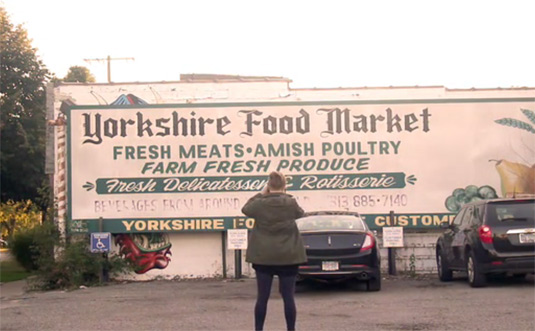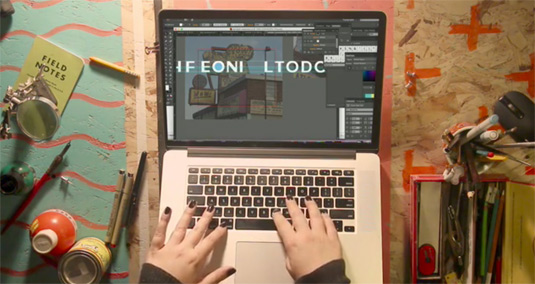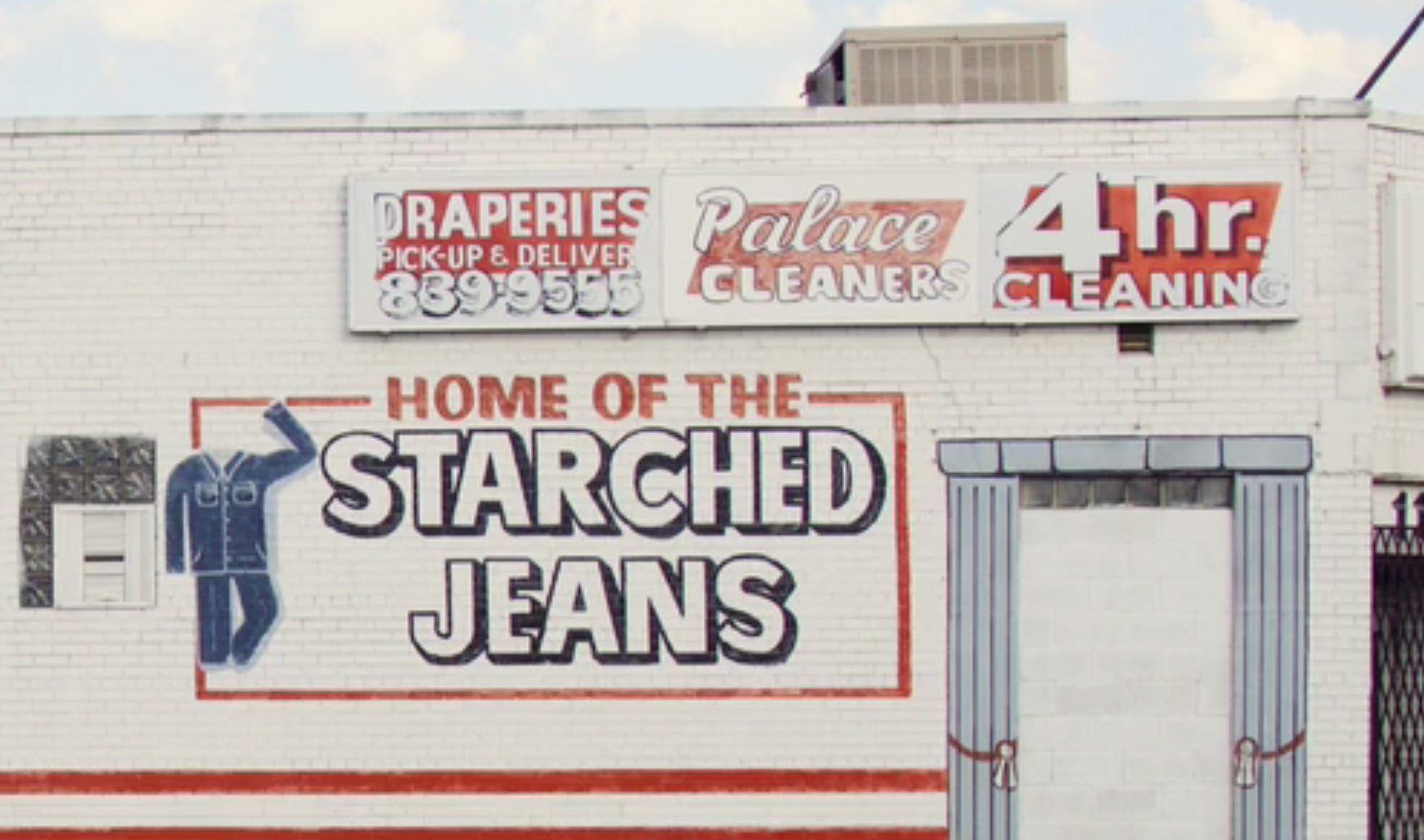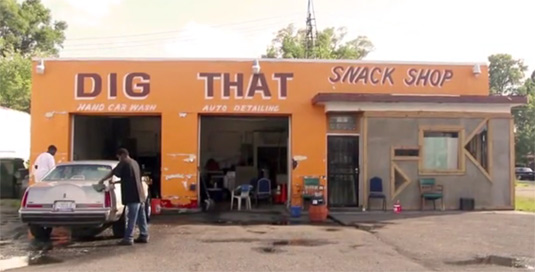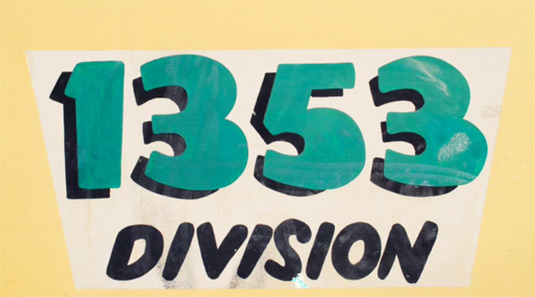
Type foundry turns old signs into amazing fonts
Detroit type foundry Gratiot and Riopelle has used the city's old signage to create accessible fonts.
Inspiration lurks in the most everyday settings, so long as you keep an eye out for it. For designer and letterer Jessica Krcmarik, the founder of type foundry Gratiot and Riopelle, it was the walk to work that sparked the idea of creating fonts based on Detroit's hand painted signs and advertisements.
From old ads for soda, to new signs for car washes, Jessica photographed them all and sorted them by neighbourhood. Noticing similarities in the fonts she compiled, Jessica was able to create distinctive typefaces for different areas of the city.
After sketching out rough forms and scanning them into her laptop, Jessica prints them out and makes final tweaks. With an aim to make ten fonts based on the downtown area, Jessica will release the typography as pay-what-you-can downloads to make the designs accessible to everybody.
By creating usable fonts based on a specific area and making them available to small businesses, Jessica hopes the visual culture of the different neighbourhoods will live on.